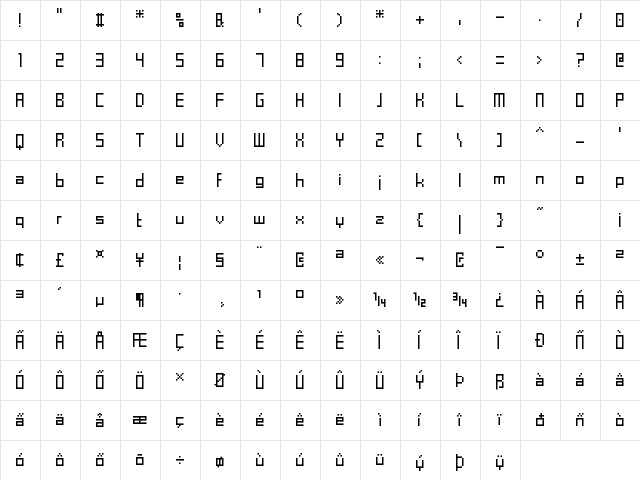
SchoonSquare Regular
Design Context for SchoonSquare Typeface
SchoonSquare offers clean, dependable letterforms without strong stylistic allegiance, making it a practical choice for designers who need flexibility.